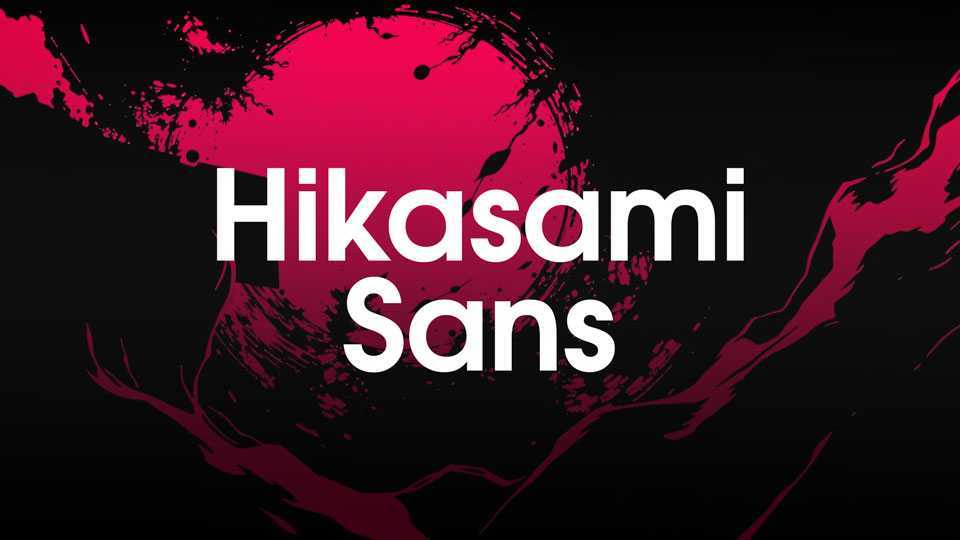
Download Hikasami Sans font, a modern geometric sans-serif typeface designed for legibility and simplicity. Hikasami Sans strikes a perfect balance between readability, speed of perception, and modern design.